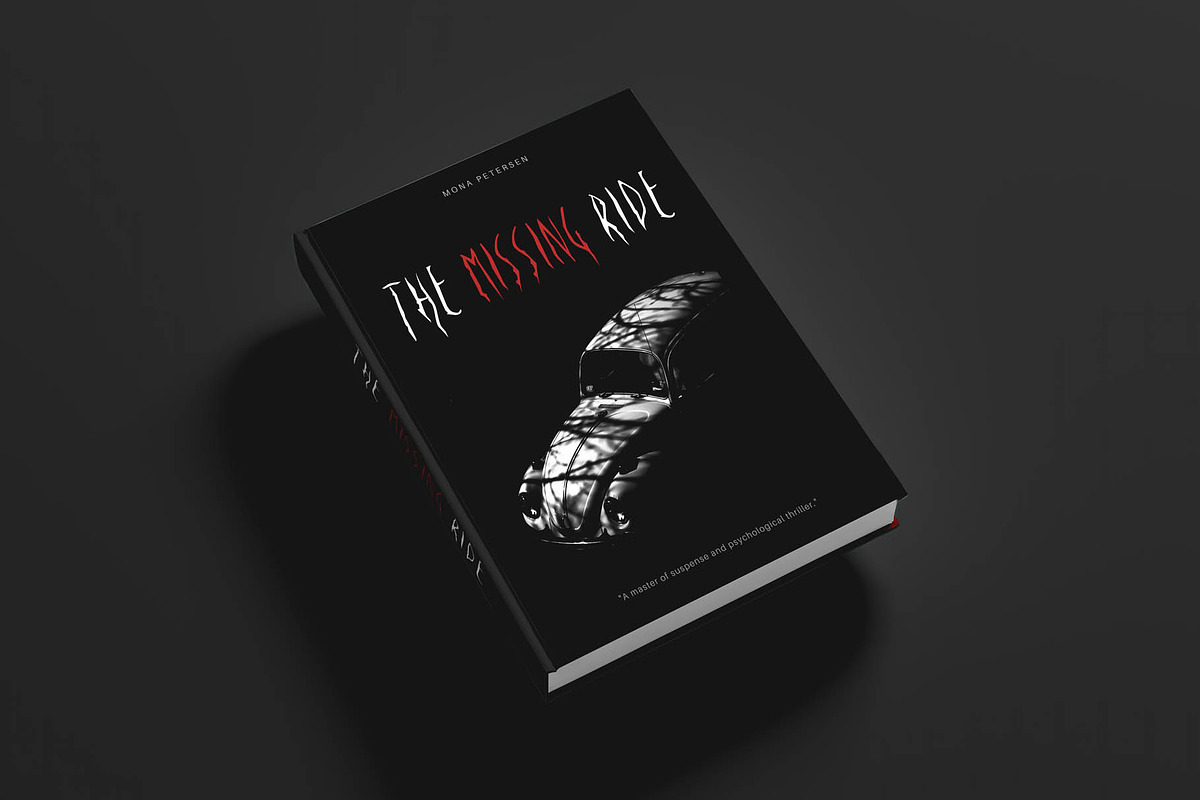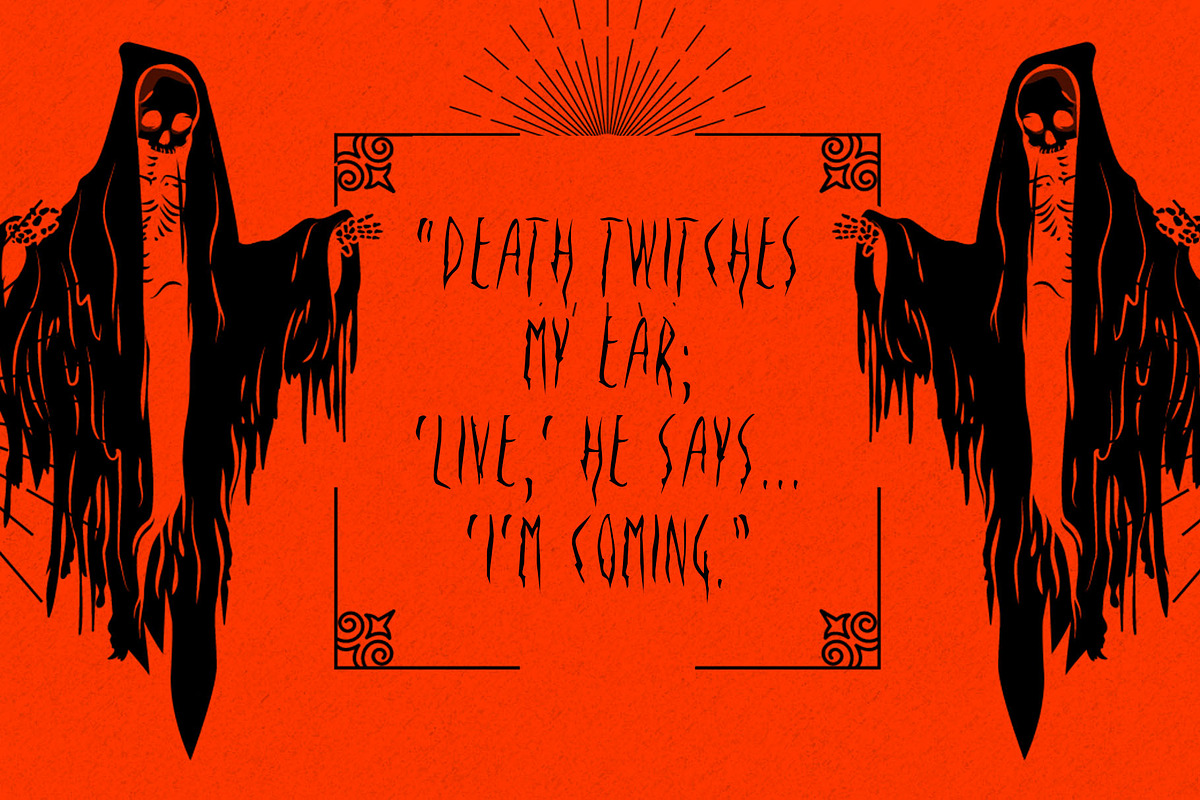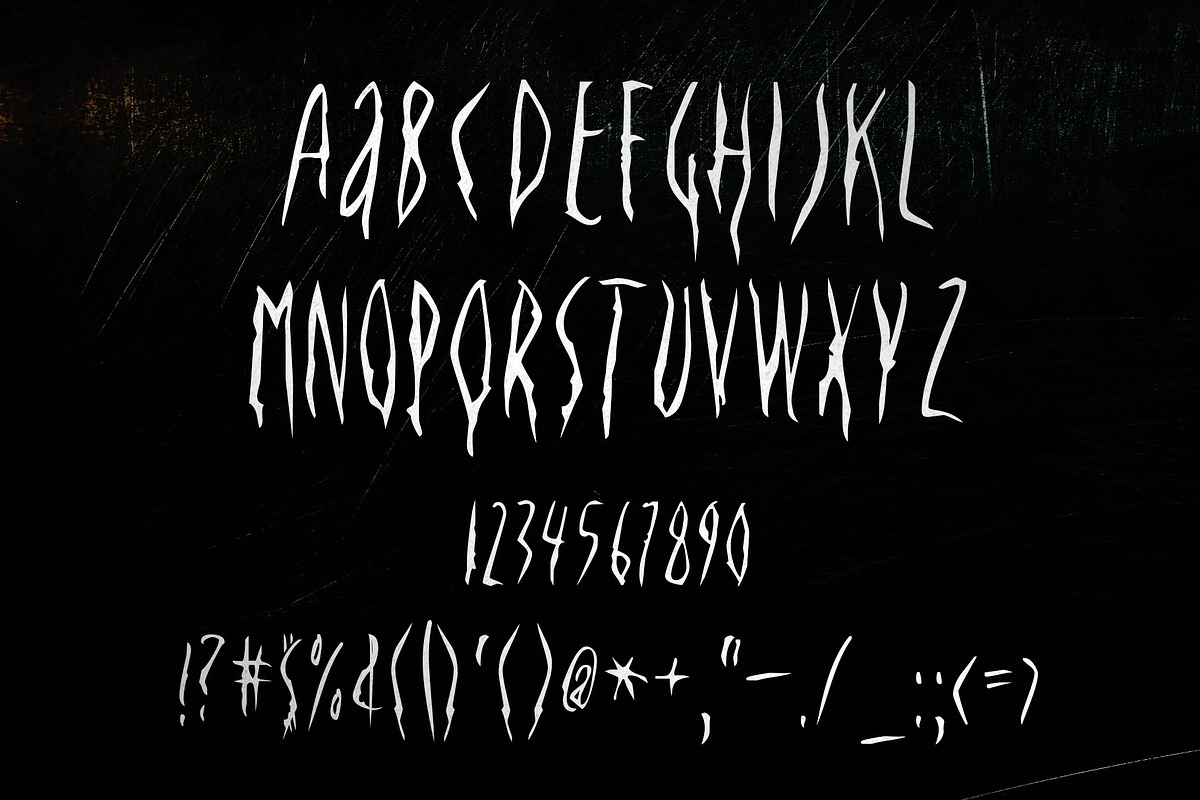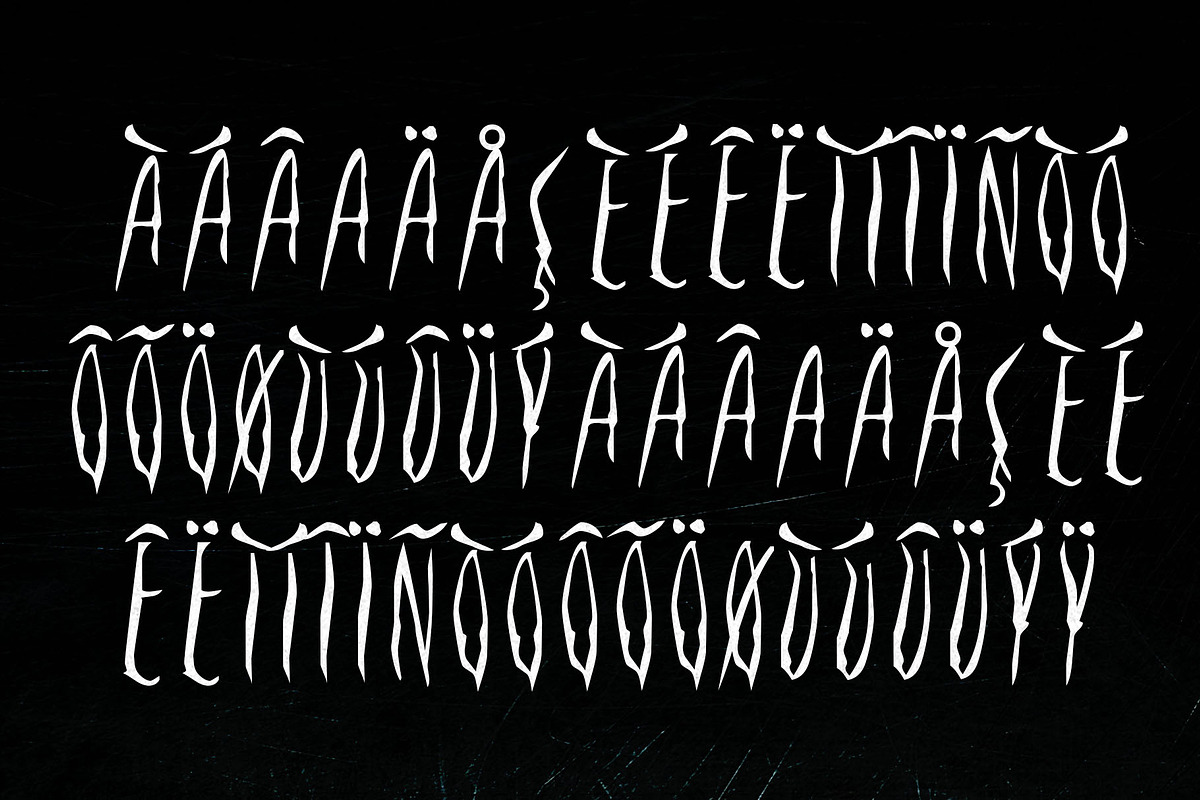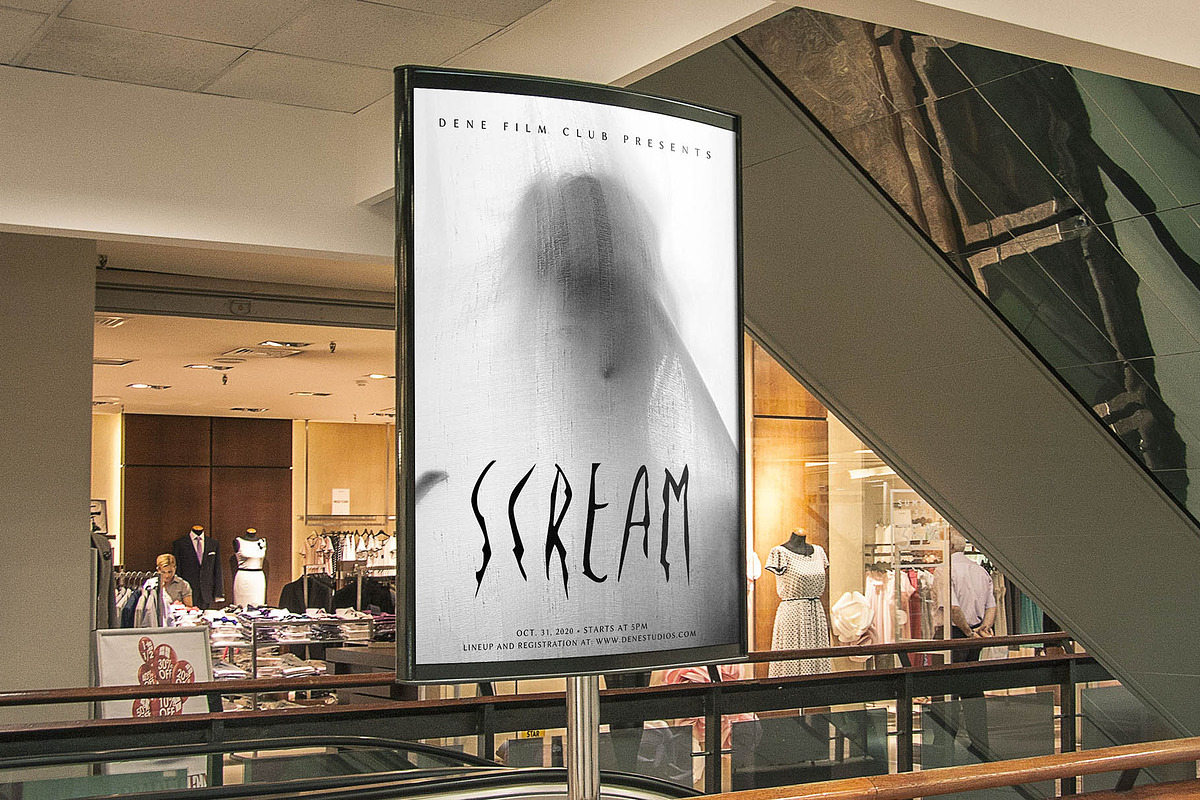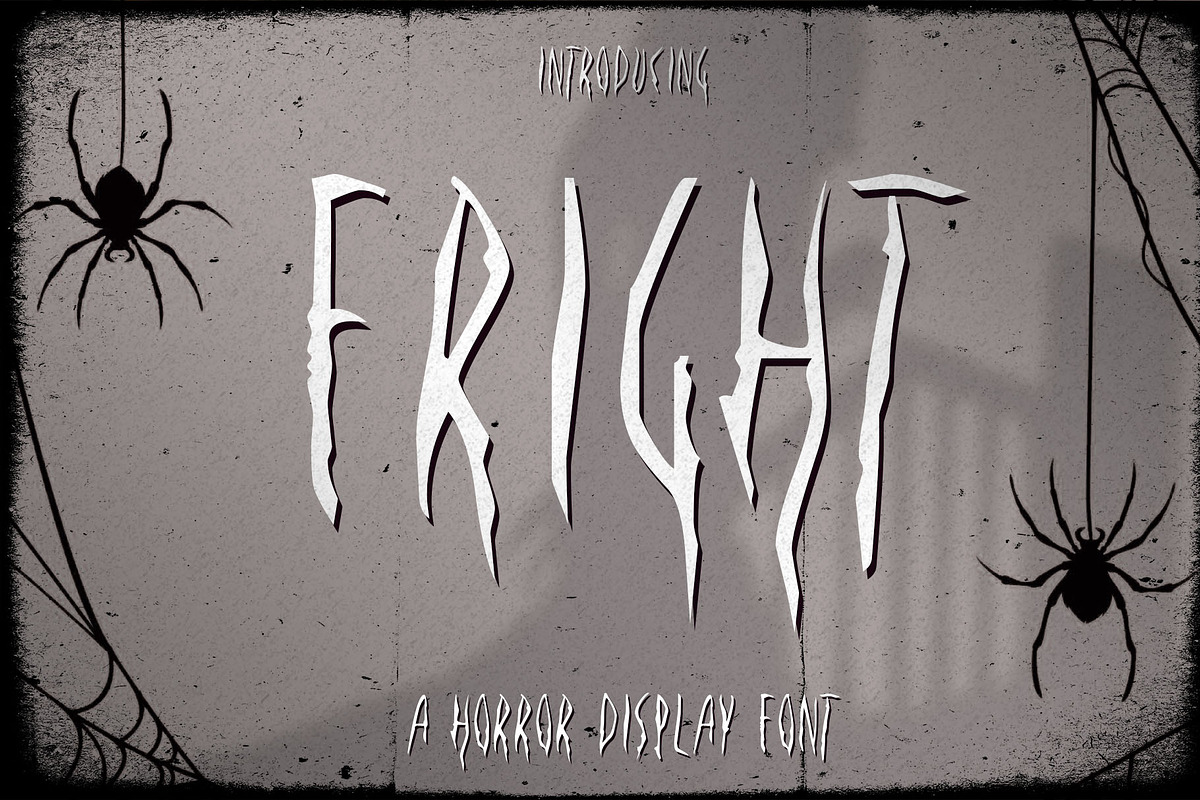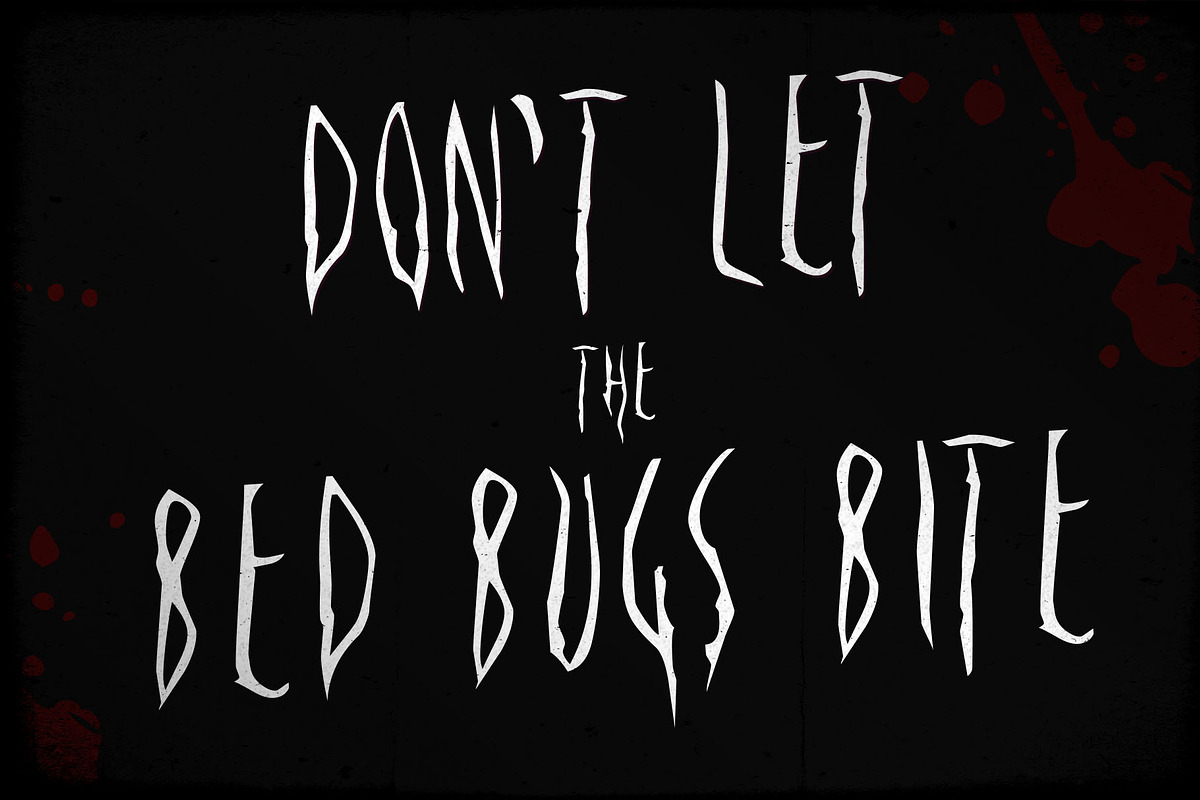
Fright - A Horror Display Font
Create outstanding horror design with this "Fright" font. A perfect fit for your horror designs or for if you want something different and eye catching.
You can even use it for branding, television, logo, packaging, band, videos, extreme designs, horror designs, you can do anything you want with this font.
The font includes accents for multilingual users and extra characters.